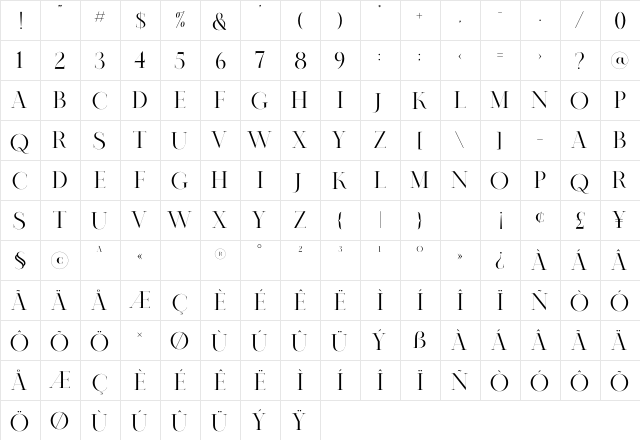
Nomark Regular
| Foundry | Brandsemut |
| Designer | Ahmad Sidiq |
Design Context for Nomark Typeface
Nomark offers clean, dependable letterforms without strong stylistic allegiance, making it a practical choice for designers who need flexibility.
Pro Tip: Use Nomark in both headline and body roles to test its range before committing to a single application.